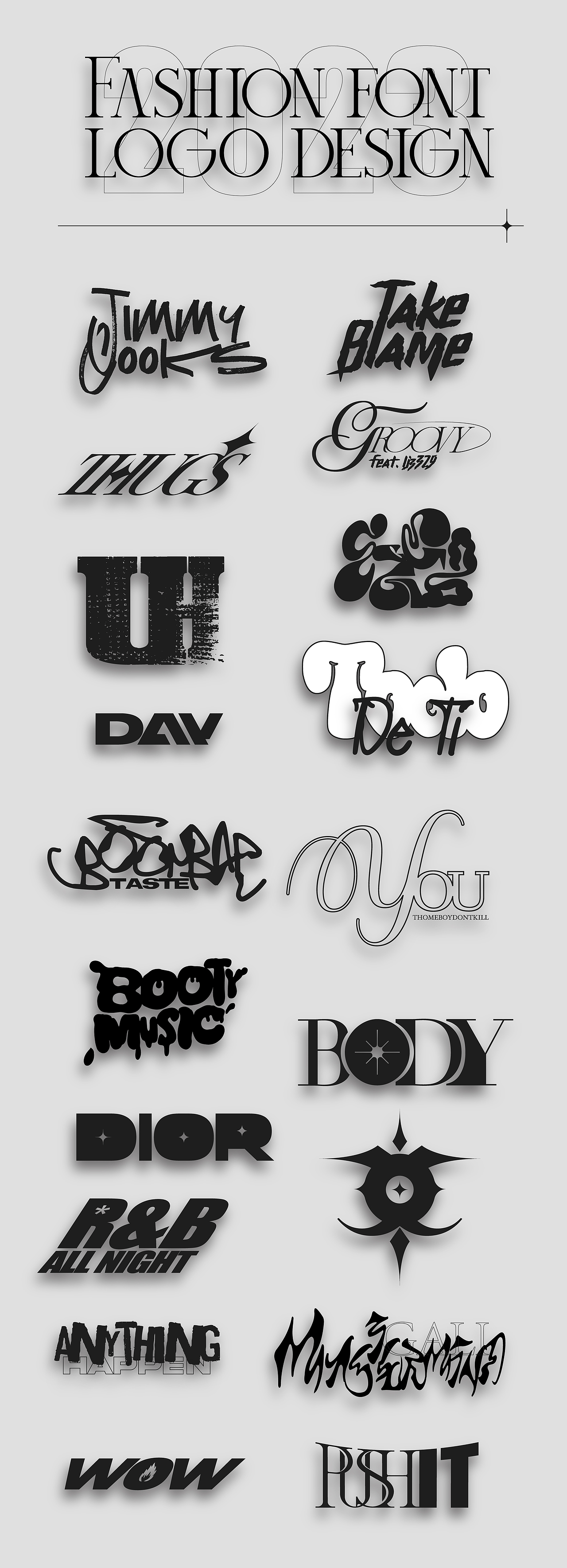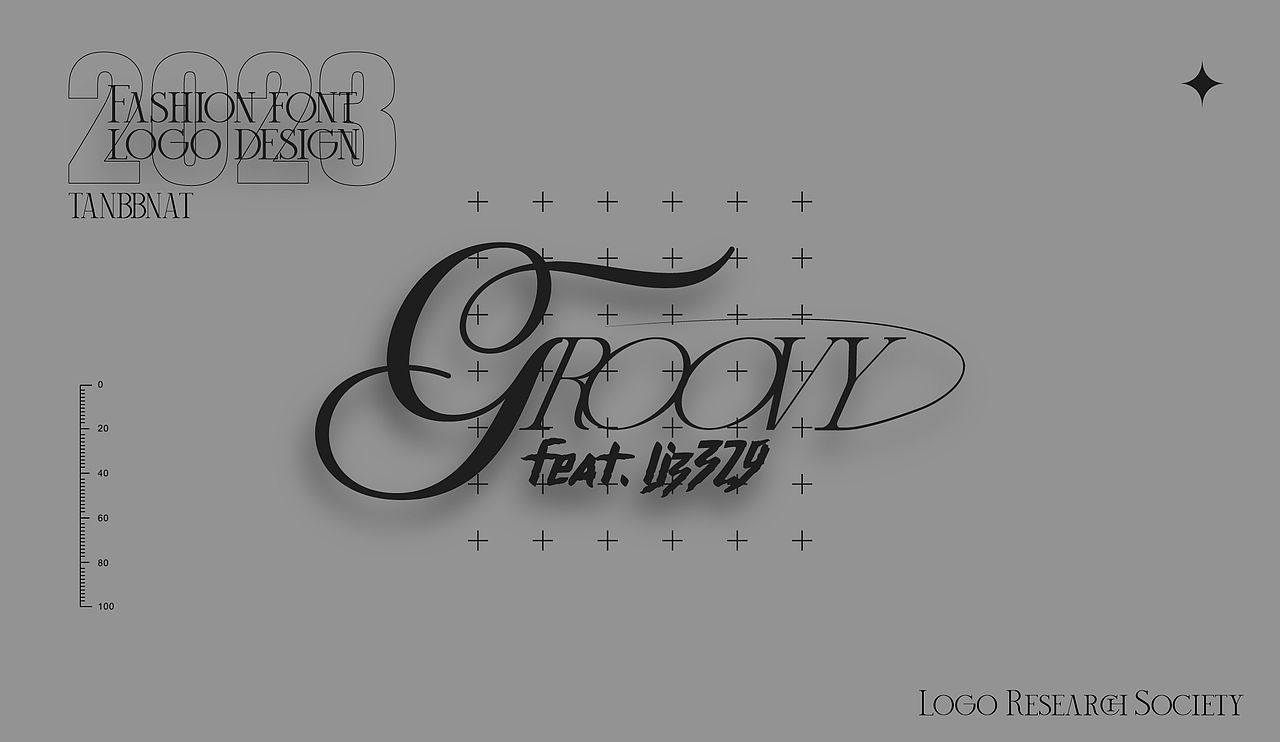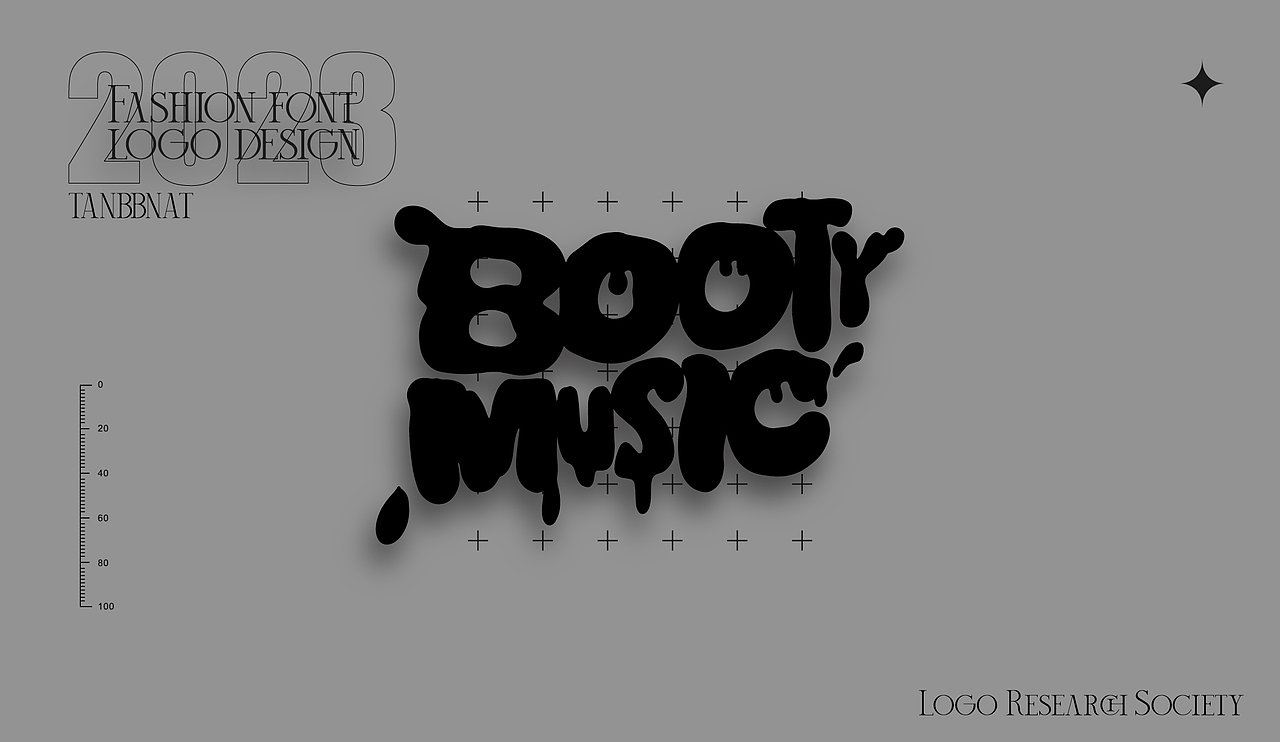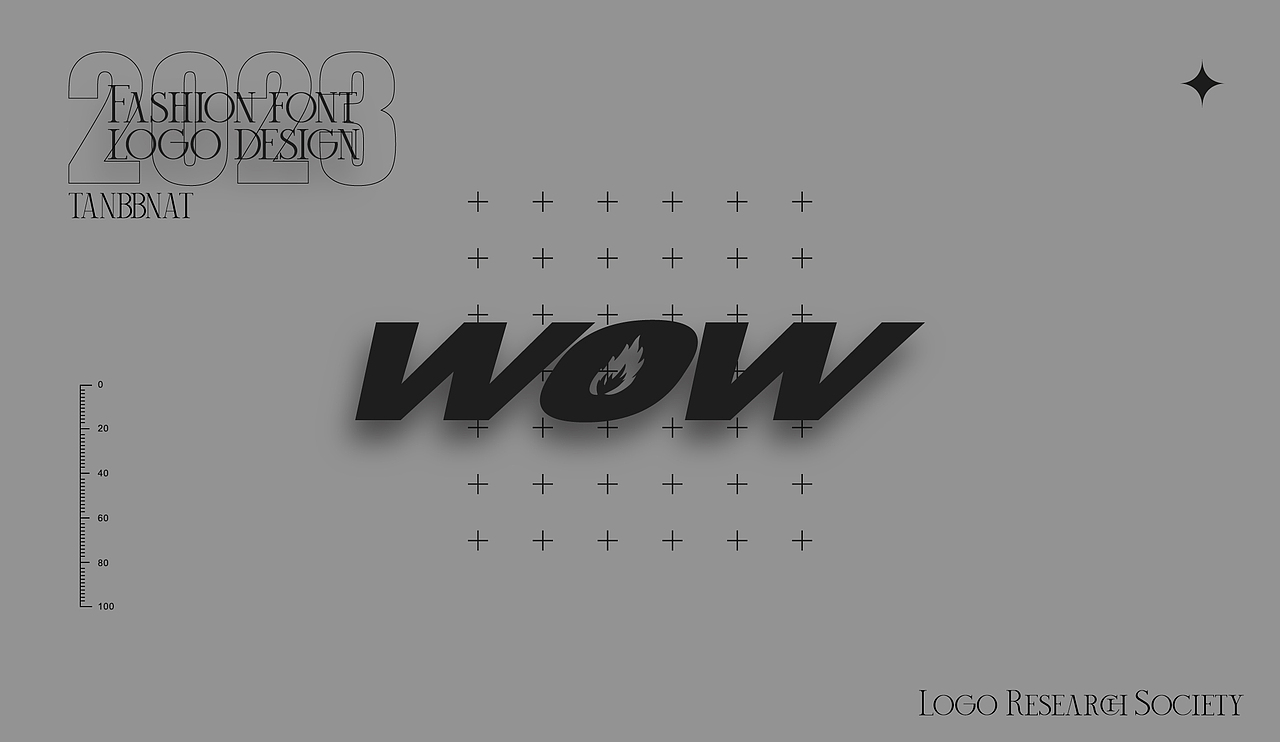
Fashion font logo design
潮流字体logo设计
Fashion font logo design
In my opinion, the word "trend" only exists in the special vocabulary of a few people who are the first to initiate the trend. For most people, the trend is an attitude, a sense of prevalence, and it is a very good state to be able to "feel good".